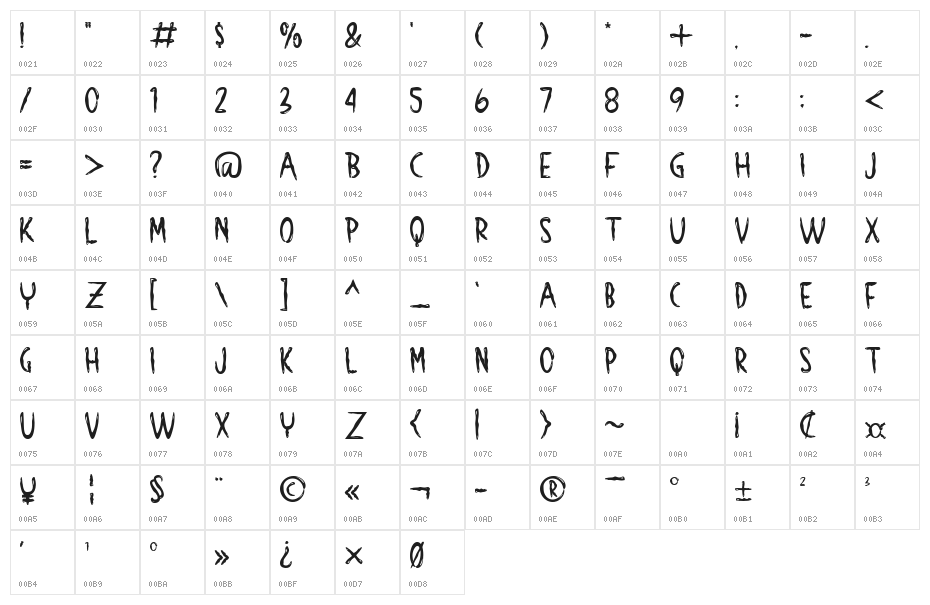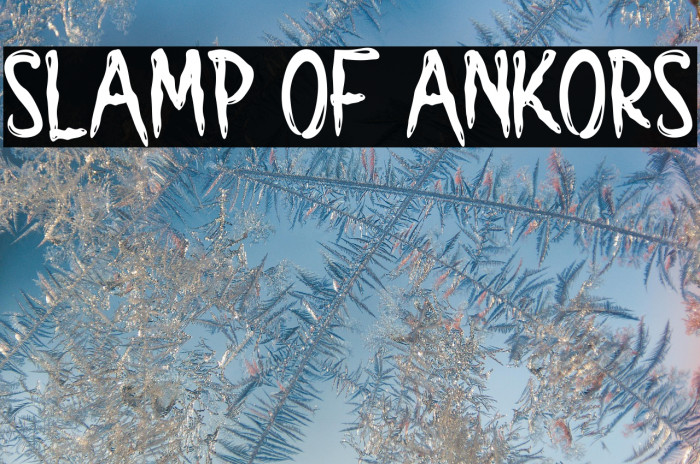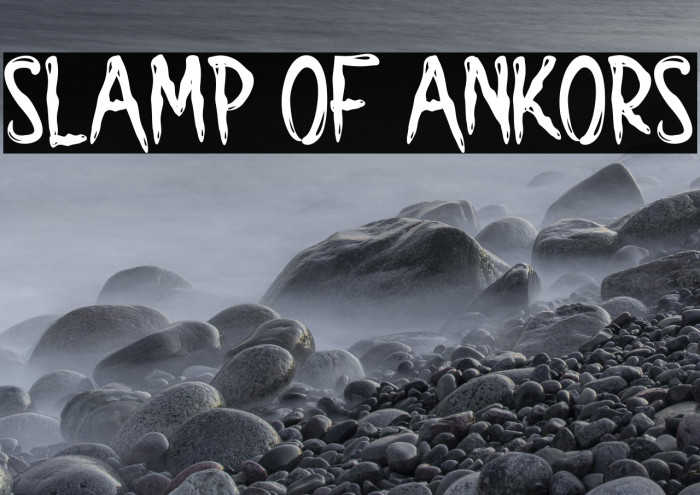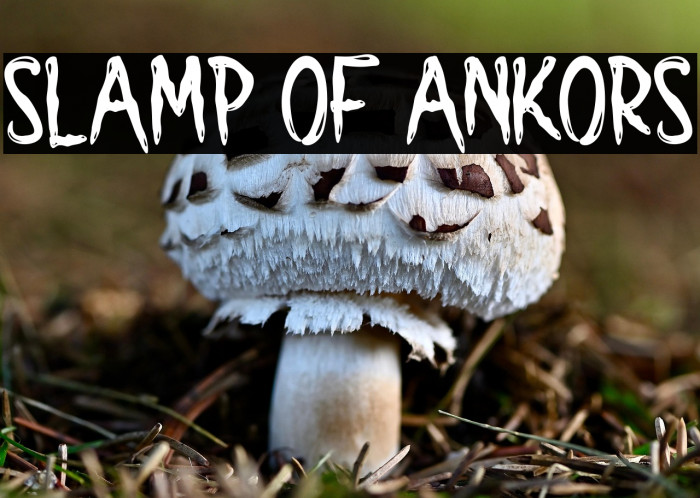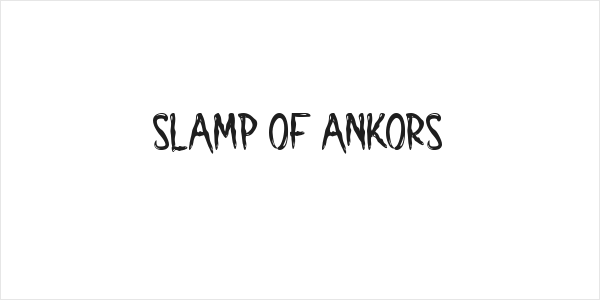
SLAMP OF ANKORS Font
SLAMP OF ANKORS Description
This font features a bold and dynamic style with a hand-drawn appearance, characterized by its irregular and fluid strokes. The letters have a playful and slightly chaotic feel, with varying thicknesses that create a sense of movement and energy. The uppercase and lowercase letters maintain a consistent style, while the numbers and special characters integrate seamlessly with the overall design. This font's unique and artistic flair makes it stand out, making it suitable for creative and unconventional projects.
Proposed ProjectsIdeal for posters, album covers, artistic branding, and creative event invitations.